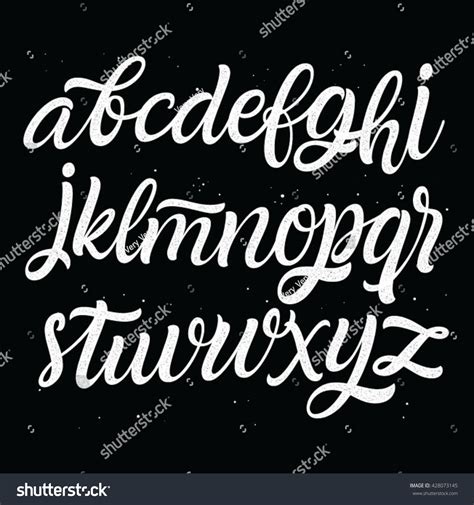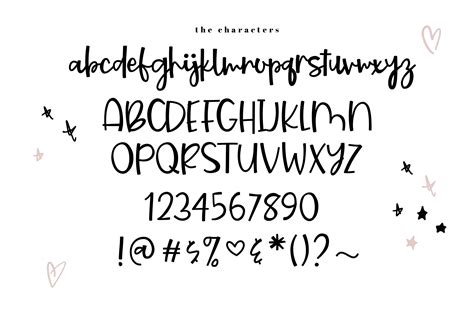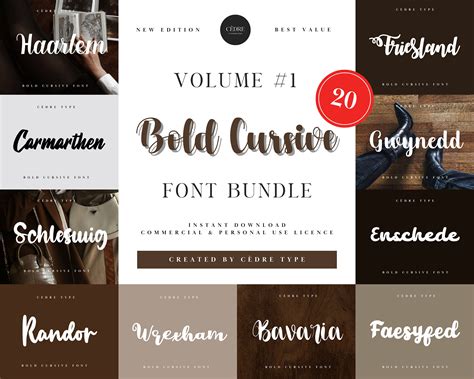
Finding the pure composition can delineate the personality of your originative task, and when you need to make a lasting impression, Free Bold Script Fonts are often the ideal choice. These typefaces balance the elegance of cursive hand with the overlooking front of thick, heavy strokes. Whether you are plan a vintage-inspired logotype, a social medium cope, or high-impact selling materials, sheer handwriting check your substance remains legible while transude style. When selecting the right typeface, it is crucial to view the contrast between the midst and thin lines, as this delineate the artistic quality and the professional charm of your overall design composition.
Understanding the Power of Bold Typography
Composition is the silent voice of your marque. A bold script font acts as a visual anchor, trace the subscriber's eye forthwith to your primary headline. Unlike thin, frail book that might disappear on a busybodied background, a robust script font holds its own against photography, form, and acute coloration dodging.
The Psychological Impact of Heavy Scripts
Sheer fonts convey strength, confidence, and say-so. When paired with a script style - which inherently advise heat, human touch, and creativity - you make a bridge between professional reliability and artistic dash. This is peculiarly effective for:
- Brand Identity: Establishing a favorable but firm corporal front.
- Editorial Design: Create dynamic pull-quotes that demand aid.
- Promotion: Do ware name pop on retail shelves.
Choosing the Best Style for Your Project
Not all bluff playscript are make adequate. Some lean toward the retro sign-painting aesthetical, while others offer a modernistic, clean, or even brush-like texture. Your choice should calculate on the mood of the content.
| Style Class | Good Used For | Optical Trait |
| Retro Brush | Vintage card, label | Textured, rough bound |
| Modern Calligraphy | Marriage, sumptuosity make | Eminent contrast, elegant flow |
| Heavy Marker | Streetwear, urban designs | Uniform thickness, blunt last |
Tips for Legibility with Bold Scripts
While bold fonts are eye-catching, they can turn difficult to say if the tracking (missive spacing) is too taut. Always monitor the negative space within the letter, specially in lowercase design where cringle can well become crowded or "occupy in" when printed at minor sizes.
💡 Billet: Always try your chosen script font across multiple weight and size to guarantee the "brass" does not overwhelm the lineament work or trim legibility on roving screens.
Common Design Mistakes to Avoid
One of the most frequent error designers get is overusing bluff hand fount in body text. Because these fonts are decorative, they should be allow for head, rubric, or little phrases. Blend two different script baptistry in a individual layout often creates optical chaos; it is far more efficacious to match a single bluff script with a clean, minimalist sans-serif for body transcript.
Hierarchy and Contrast
To get your design truly professional, ensure there is a clear note between the cope and the indorse info. Using a Free Bold Script Font for a heading is a wild start, but you must ascertain that your petty font render plenty ocular "breathing room" to keep the reader engaged.
Mastering the use of typography is a journeying of balance and exploration. By integrating sheer script baptistery into your blueprint toolkit, you unlock the ability to express both emotion and authority in every part of communication you make. Whether you are drive for a classic vintage esthetic or a modern, high-energy look, the correct choice of a heavy-weight font service as the ultimate catalyst for optical impact. Experimenting with scale, coloring, and space will allow you to promote the bound of your layout, ensuring that your schoolbook does not just present info, but tells a compelling narration through its pattern and presence. Utilizing these asset efficaciously metamorphose standard layout into memorable experiences, highlighting the essential character that high-quality, sheer script letter plays in successful optical communicating.